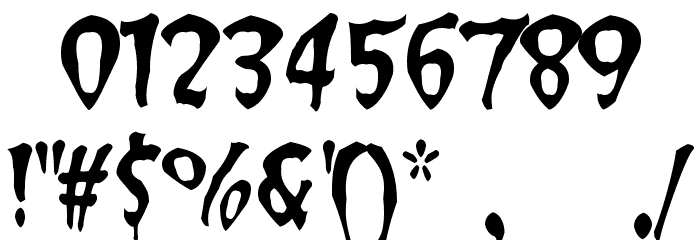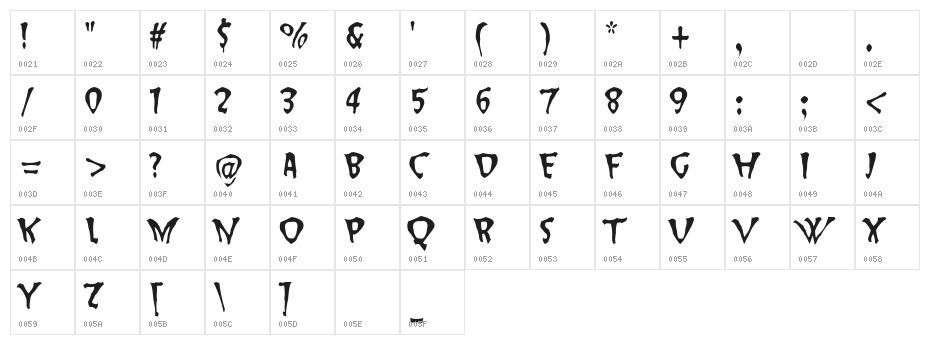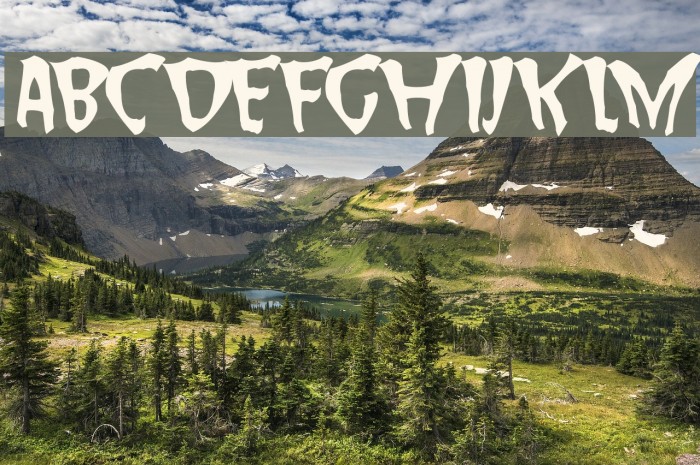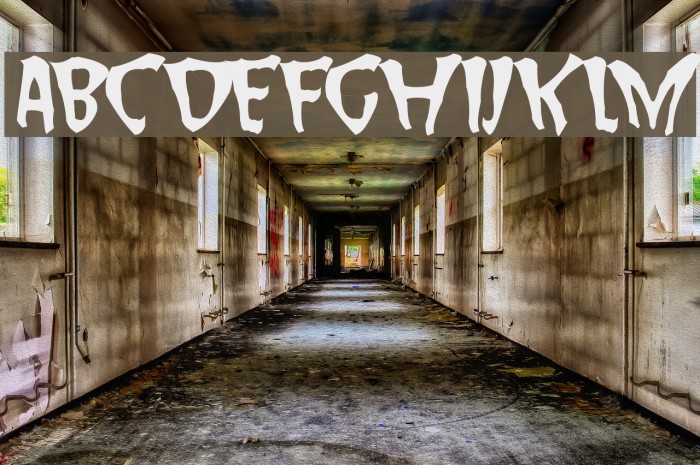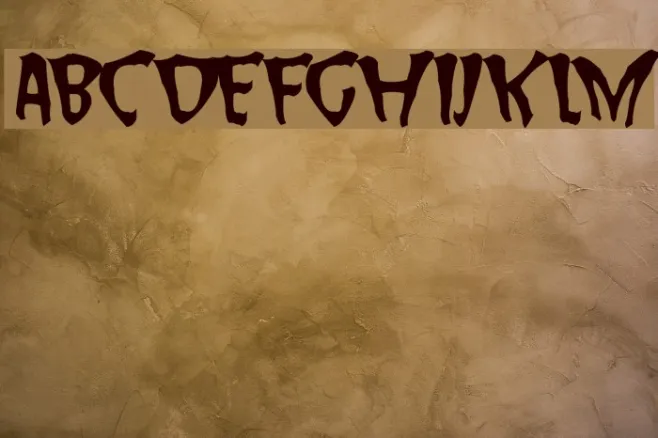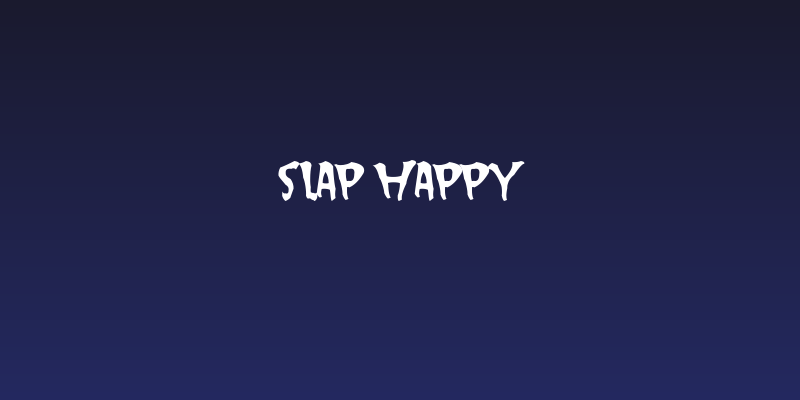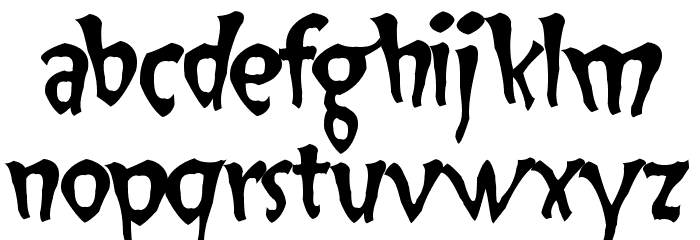
Slap Happy Font
Slap Happy Description
This font exudes a playful and whimsical character, with its irregular and hand-drawn appearance. The letters have a bold, uneven stroke that gives it a lively and dynamic feel. The uppercase and lowercase letters maintain a consistent style, with exaggerated curves and angles that add to its quirky charm. Numbers and special characters follow the same playful design, making it a cohesive typeface. Its unique style makes it stand out, perfect for projects that require a touch of fun and creativity.
| Overall Style | Whimsical |
| Proposed Projects | Ideal for children's books, comic strips, playful branding, and creative posters. |